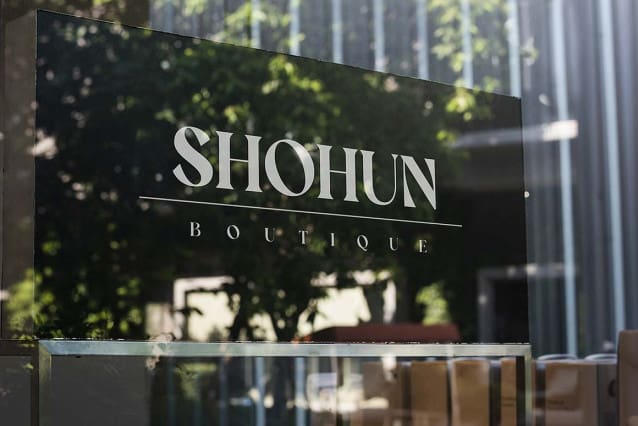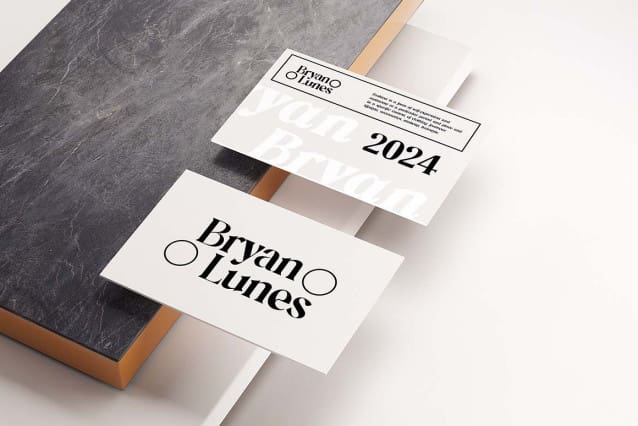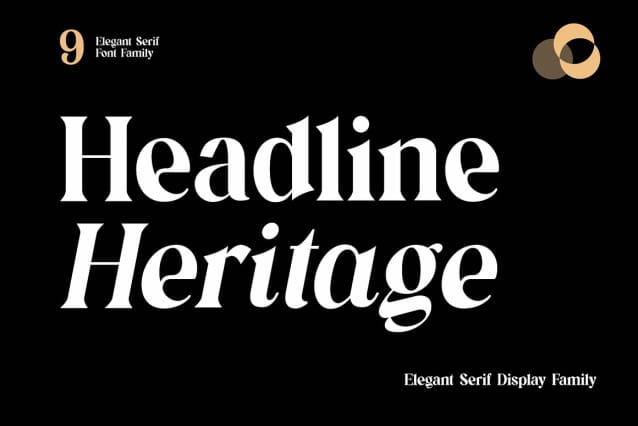
Headline Heritage Font Family
Headline Heritage Font – Elegant Serif Font. The modern display font feels beautiful classy, elegant, and stylish. This font is ideally suited for a wide variety of projects, such as signature, stationery, logo, wedding, typography quotes, magazine or book covers, website headers, branding, and more. Also, fashion-related branding or editorial design displays both masculine and feminine qualities.